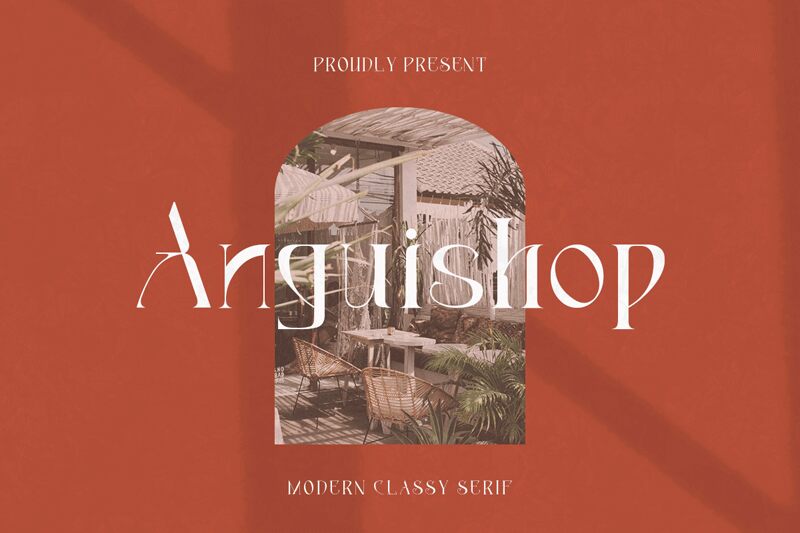
Anguishop
Anguishop by Kong Font is a modern classy serif font with a semi-light weight, perfect for display purposes.
Its elegant and sophisticated design lends itself well to luxury brands, high-end fashion magazines, and upscale restaurant menus. The clean lines and timeless appeal make Anguishop an excellent choice for wedding invitations, event posters, and boutique websites. This font's versatility also extends to book covers, editorial layouts, and branding projects that require a touch of refinement.
Anguishop adds a touch of sophistication to any project that demands a modern yet timeless look.